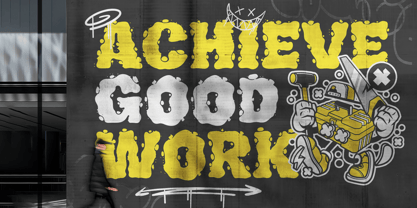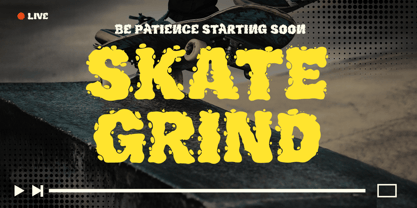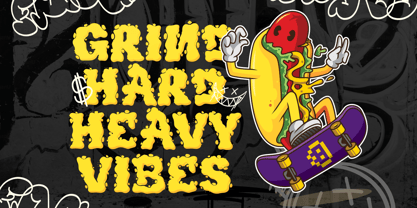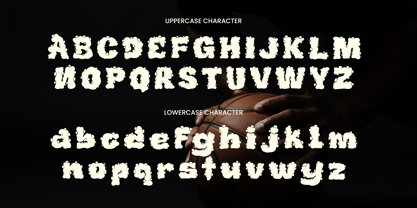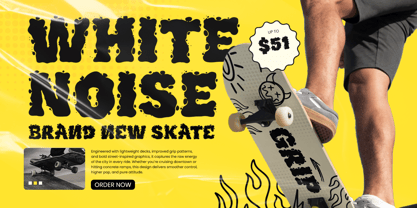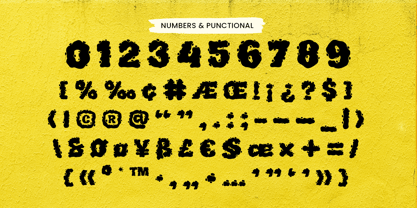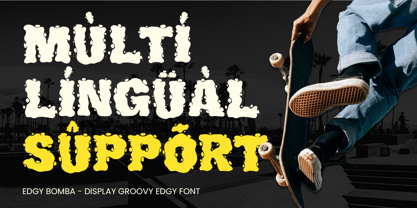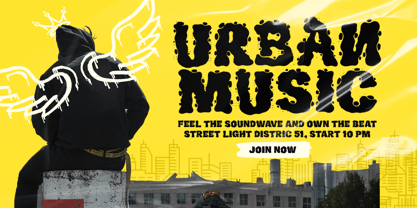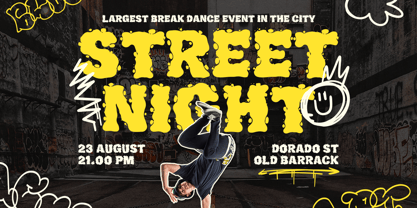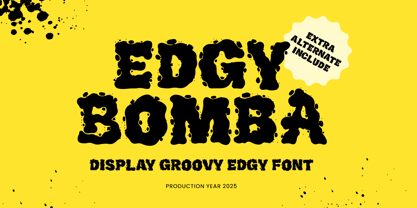
EDGY BOMBA is a display groovy edgy font built to grab attention with fearless personality. Mixing bold retro curves with punchy, expressive shapes, this typeface delivers a funky vibe that feels playful, rebellious, and made for standout typography.
Perfect for posters, headlines, album covers, festival branding, street art graphics, and expressive packaging, EDGY BOMBA brings instant energy to logos, product labels, signage, social media creatives, and modern retro campaigns. Its groovy rhythm makes it ideal for designs that want to feel loud, fun, and visually unforgettable.
Whether you’re creating a vintage-inspired brand identity, bold merch typography, or a colorful promotional layout, EDGY BOMBA helps your message pop with character and confident edge across both print and digital projects.
EDGY BOMBA – Groovy Display Font Features
Bold groovy letterforms with edgy attitude
Designed for posters, headlines, and statement typography
Perfect for retro branding, poster, and festival visuals
Great for packaging, signage, album covers, and any design
Includes uppercase, lowercase, numerals, and punctuation
Strong readability with high-impact display presence
OpenType features for flexible creative layouts
Make your visuals hit harder with EDGY BOMBA—crafted for groovy headlines and edgy retro impact. 🪩🔥
Edgy Bomba